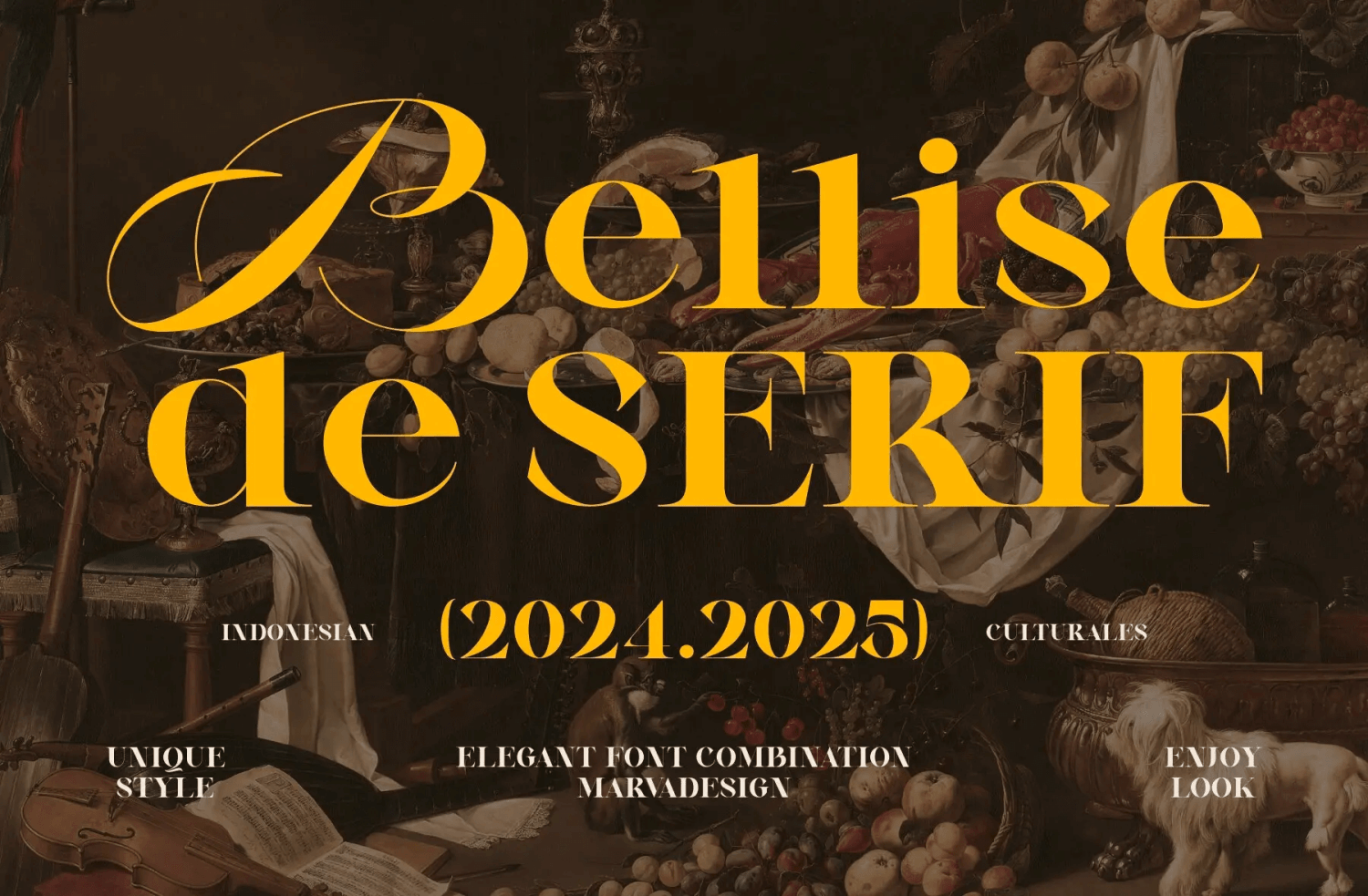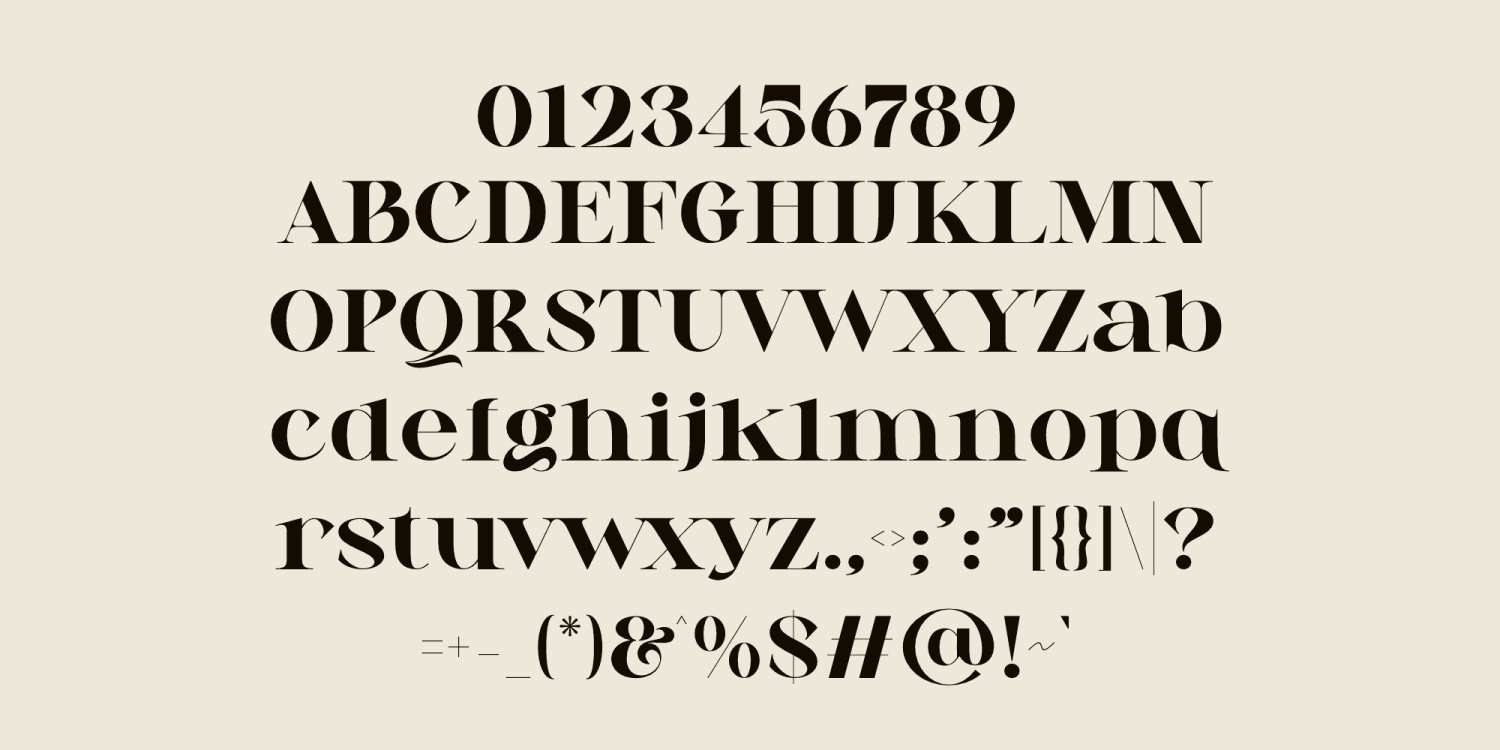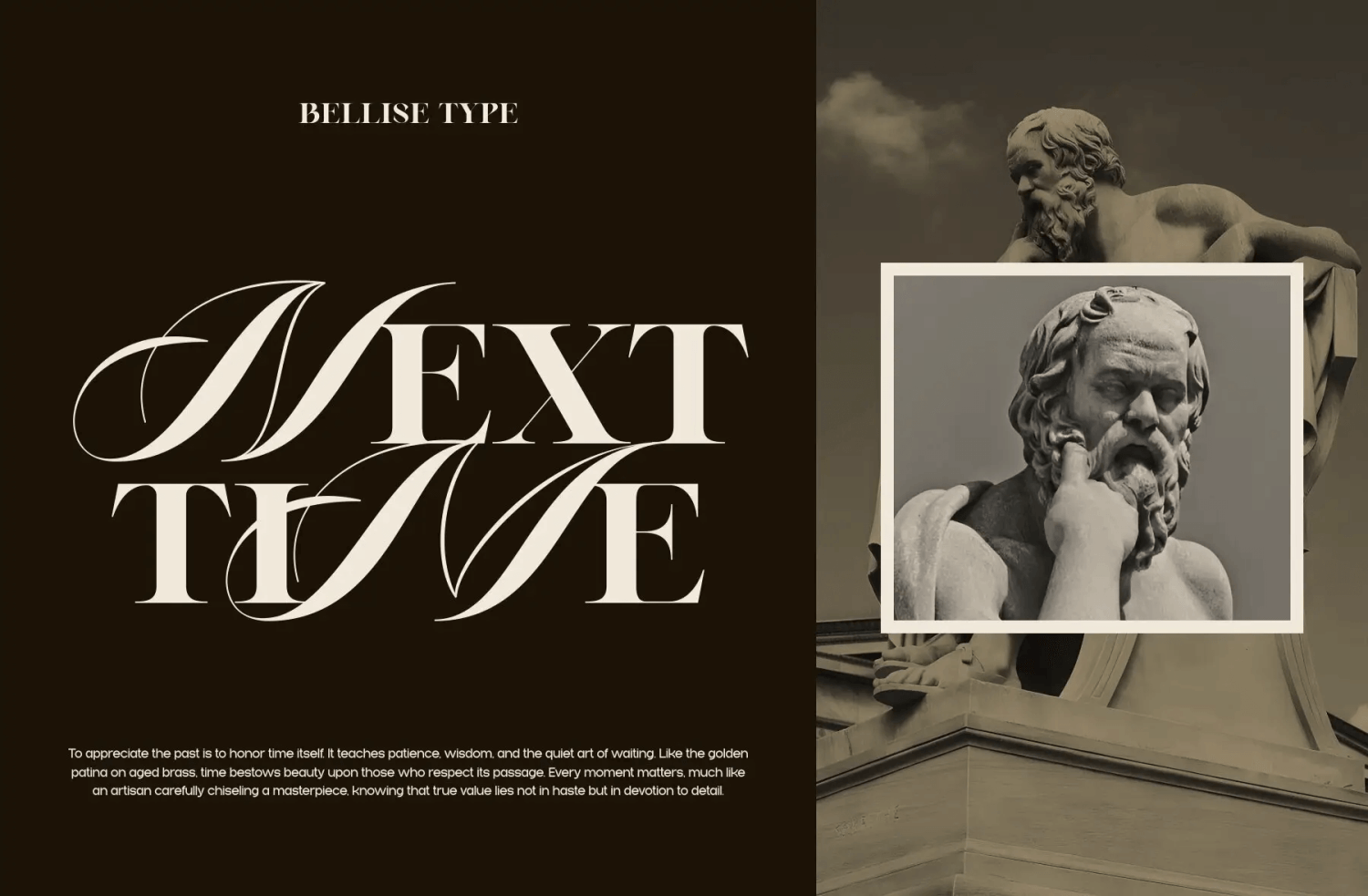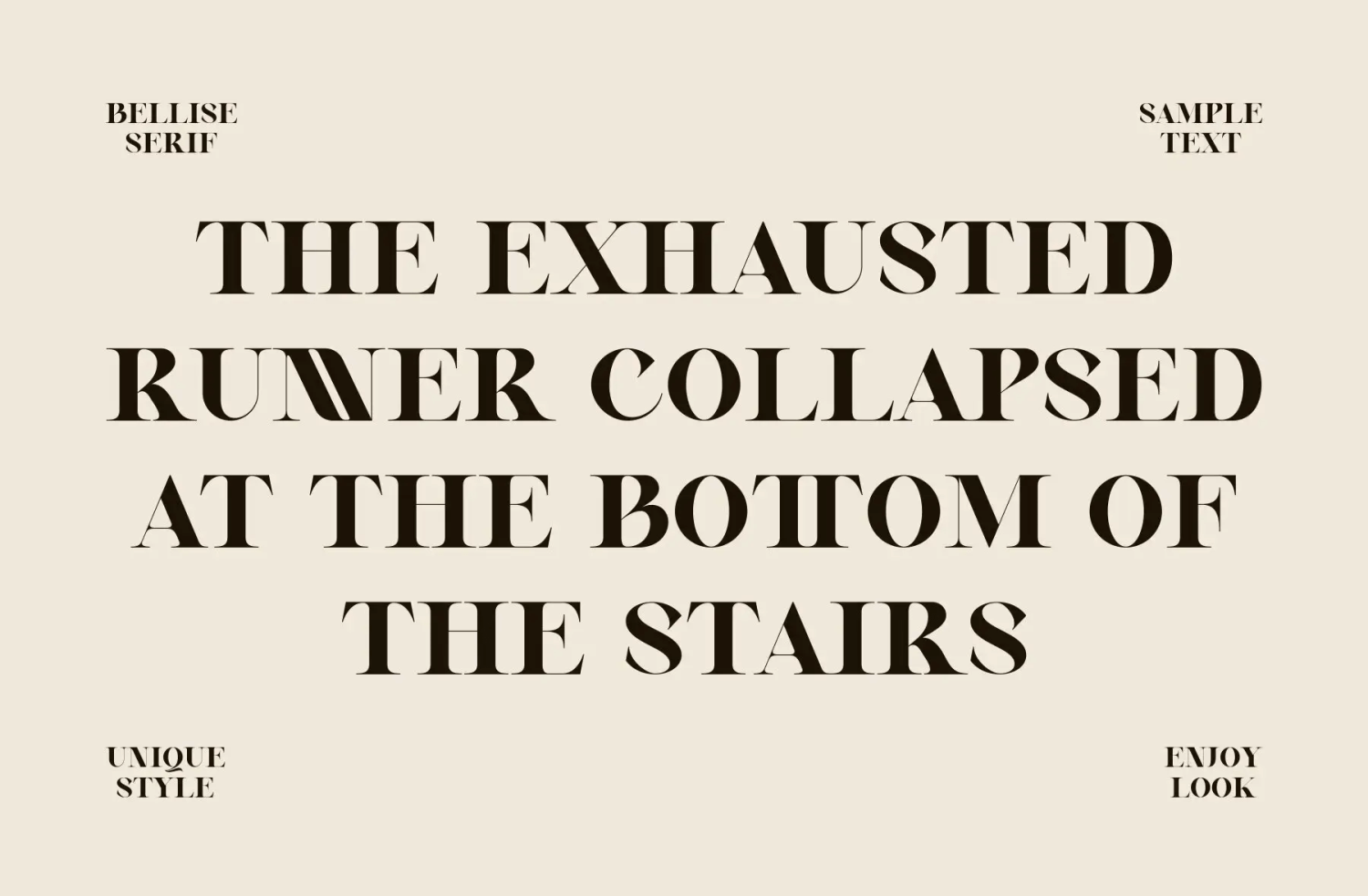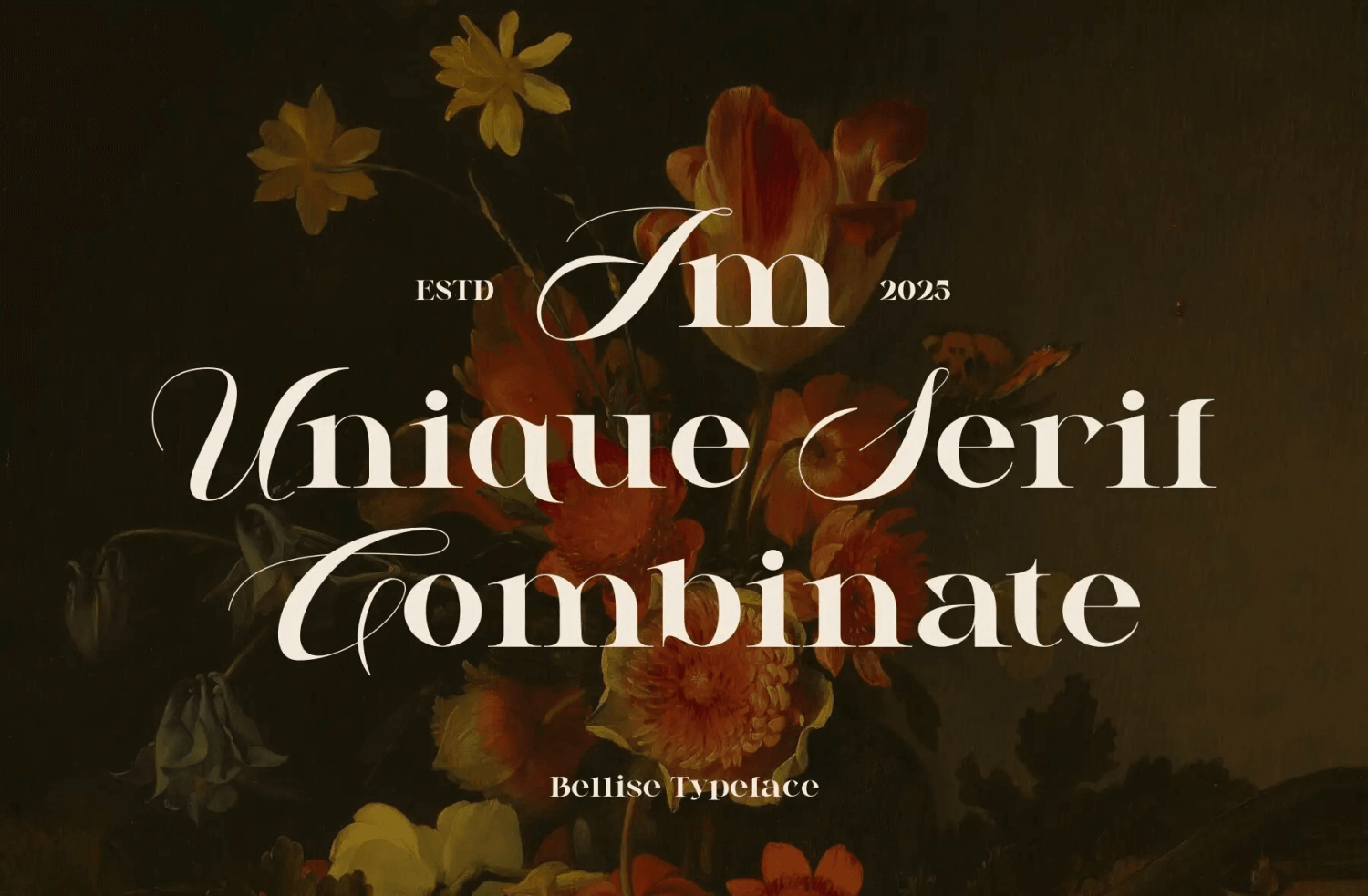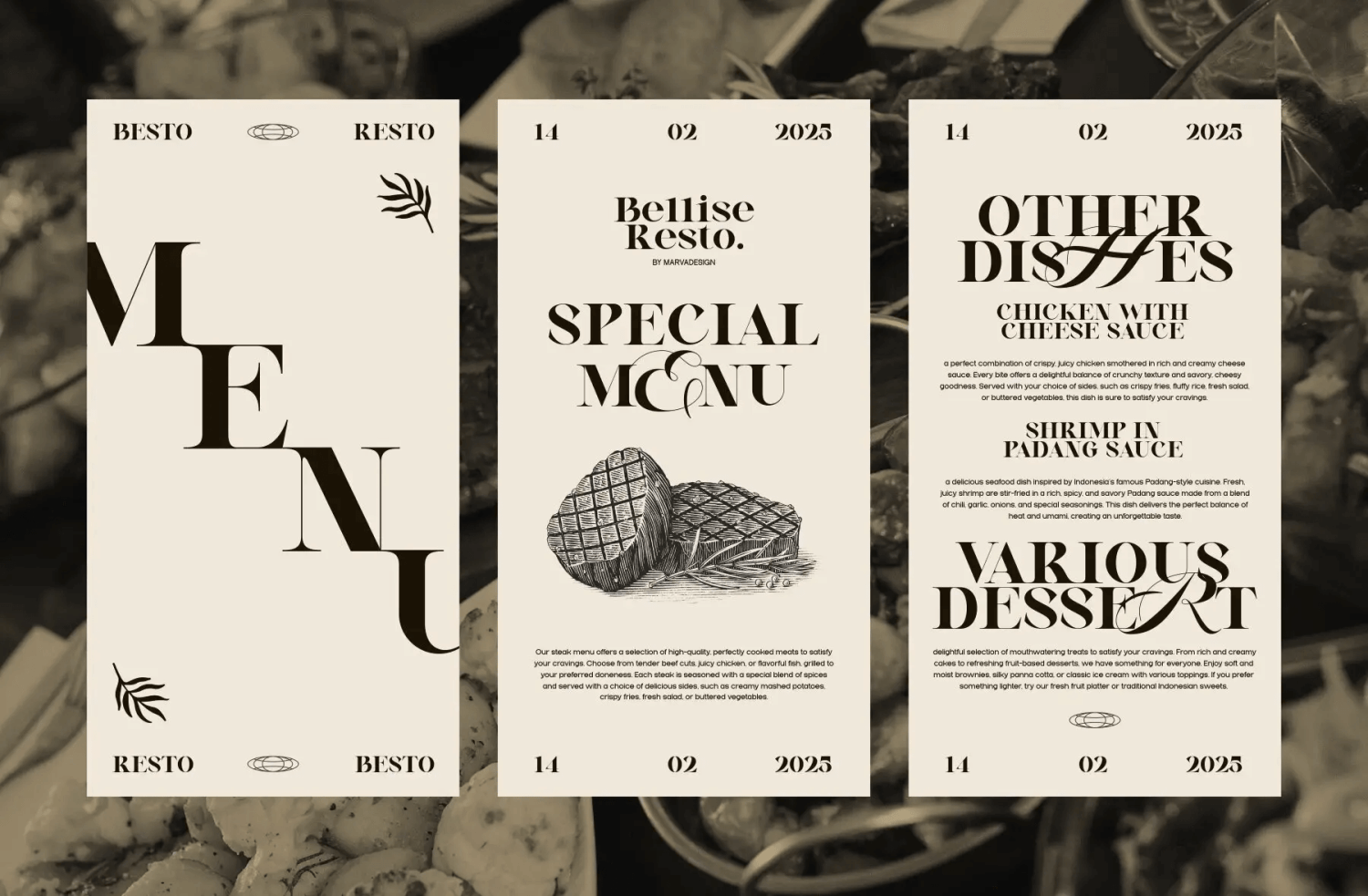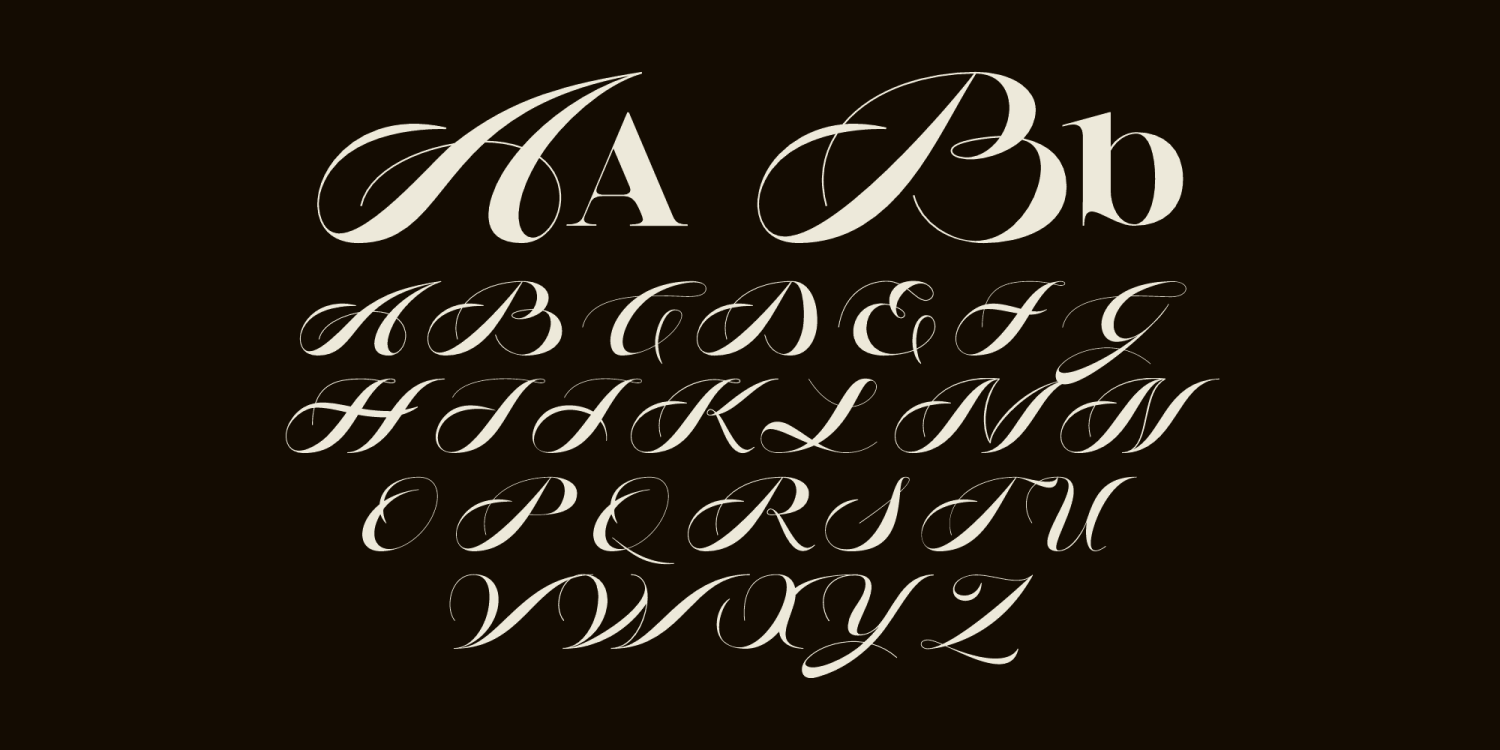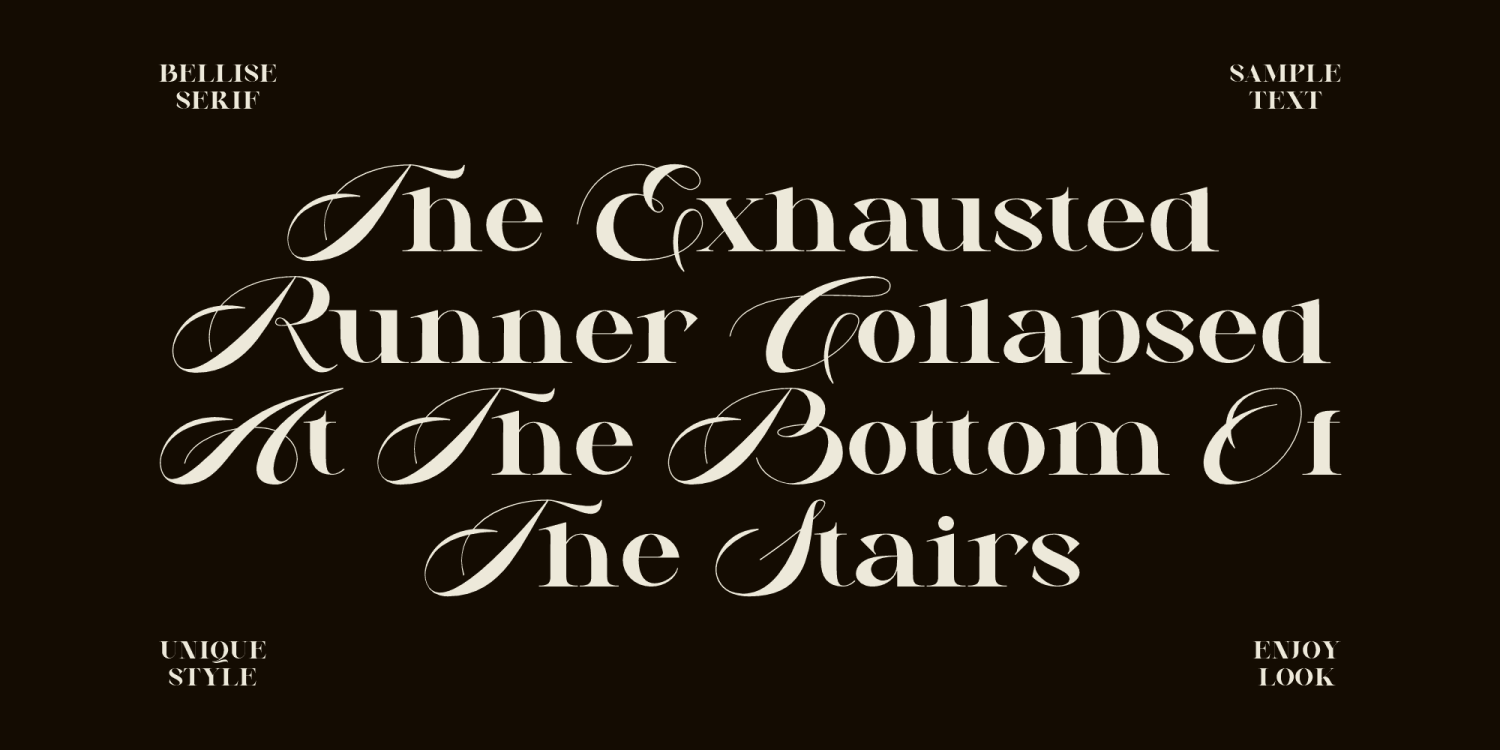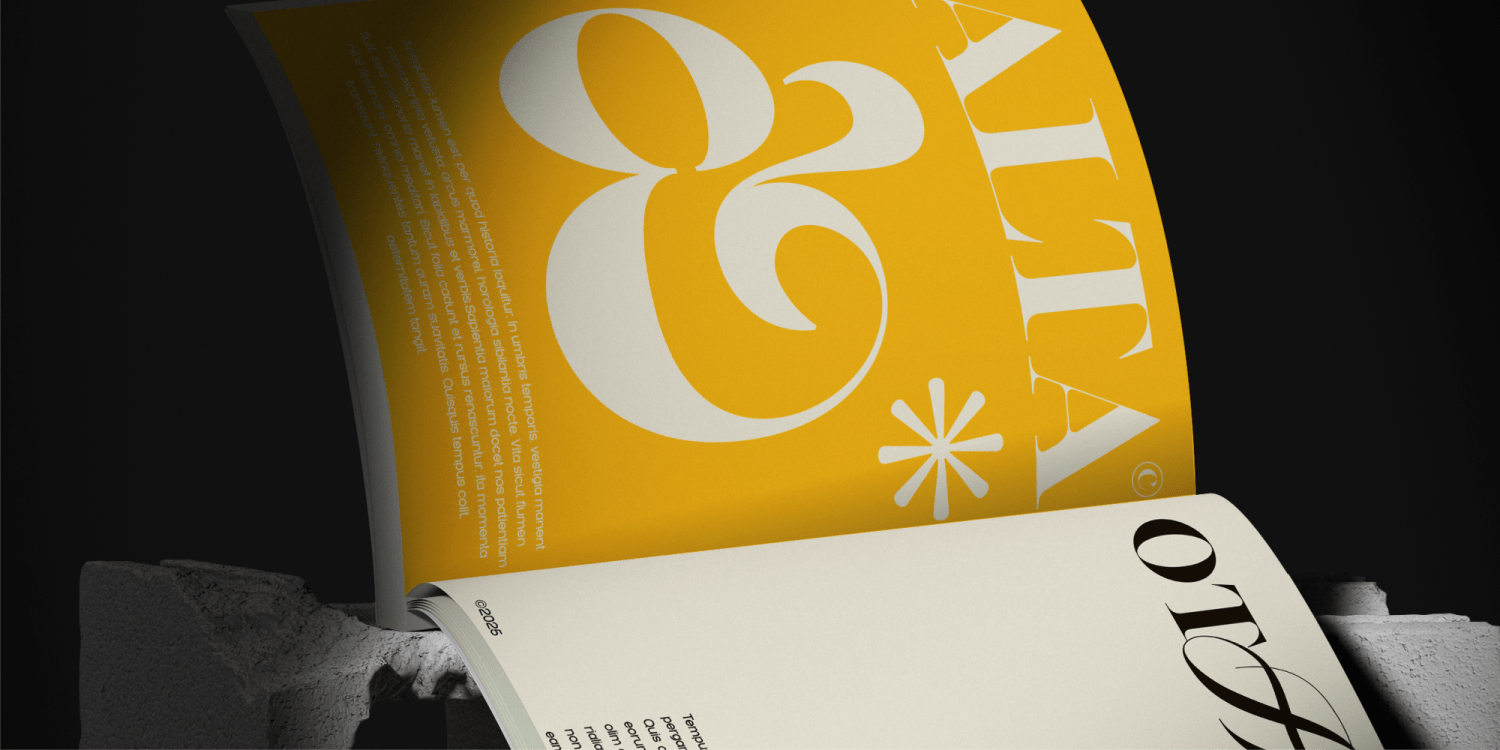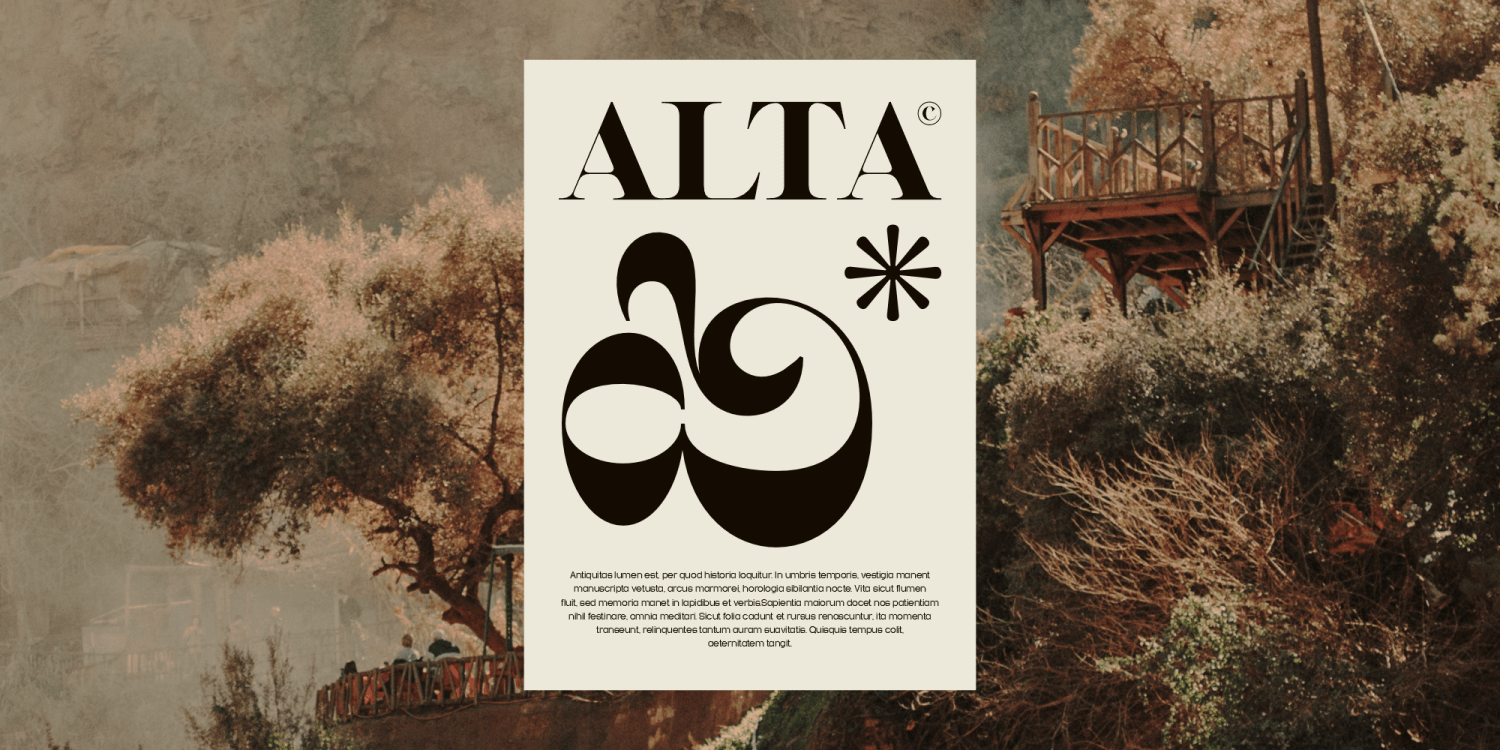
Bellise
Font Family by Marvadesign
Introducing New Elegant Serif Typeface Bellise is a distinguished typeface that masterfully combines serif sophistication with the fluid grace of uppercase script. This unique fusion results in a font that is both bold and expressive, striking a perfect balance between structure and artistic flair. The serif elements provide a strong, classical foundation, while the uppercase script introduces an elegant, calligraphic touch that adds movement and personality.
Designed for luxury branding, editorial design, and high-end visual compositions, Bellise excels in creating a timeless aesthetic. Its high contrast strokes, graceful curves, and refined ligatures make it ideal for projects that require both elegance and a commanding presence. Whether used in magazine covers, packaging, or fashion-related designs, Bellise offers a unique typographic experience that blends tradition with contemporary sophistication.